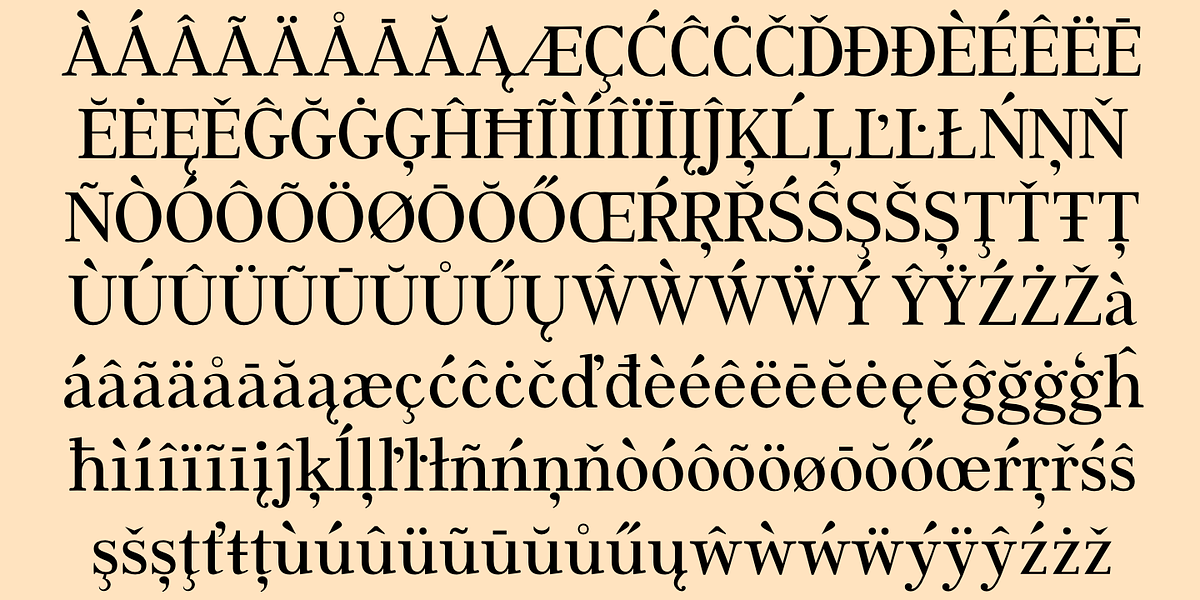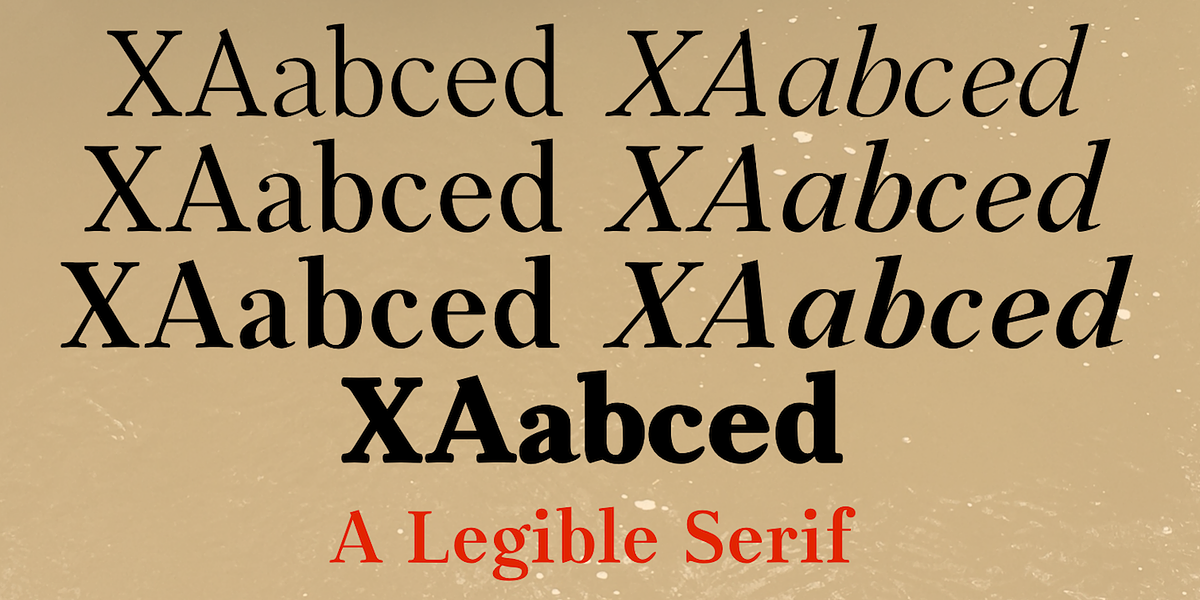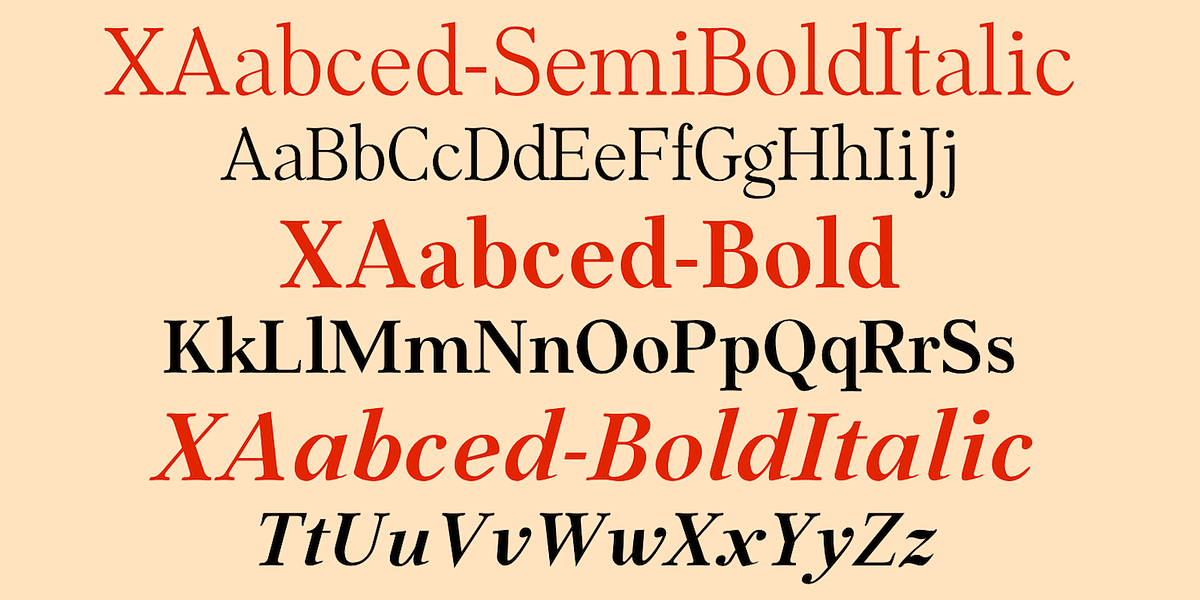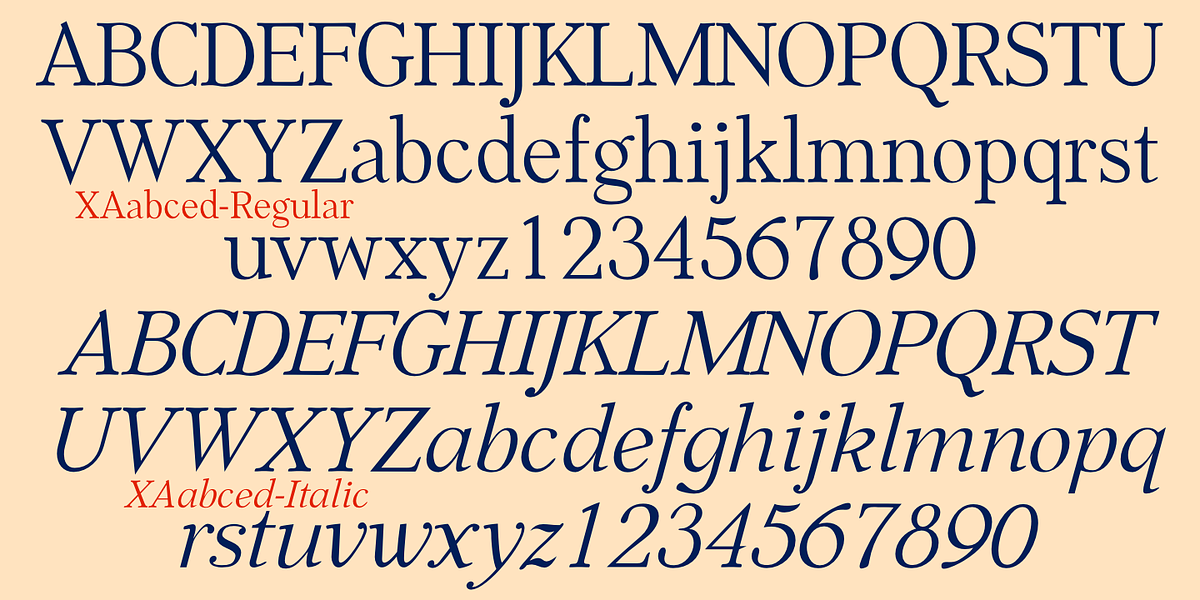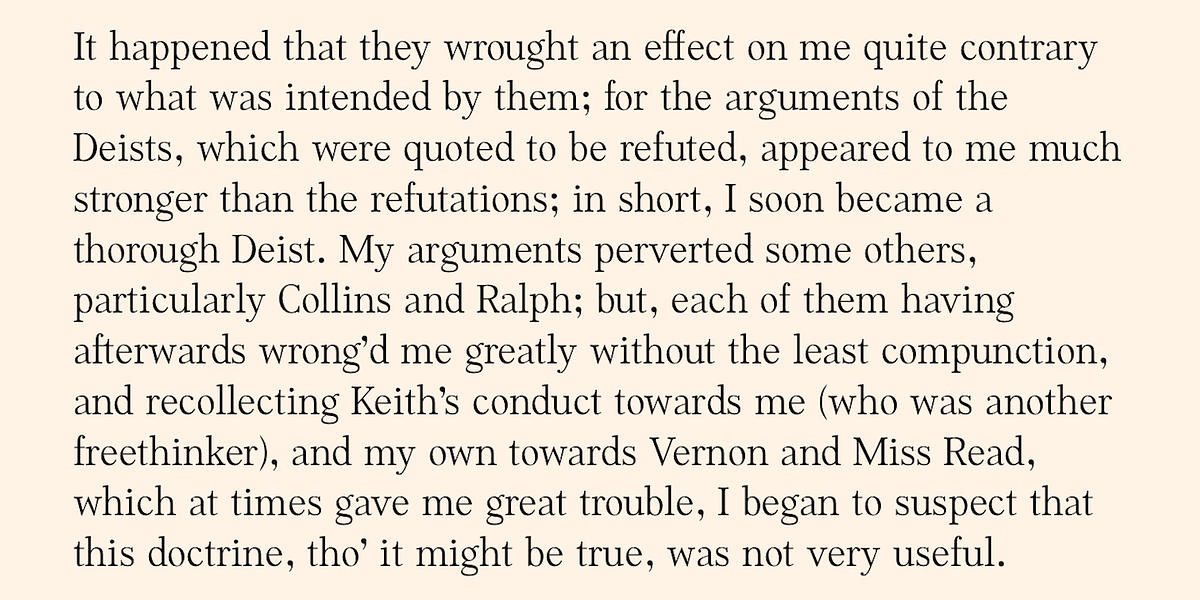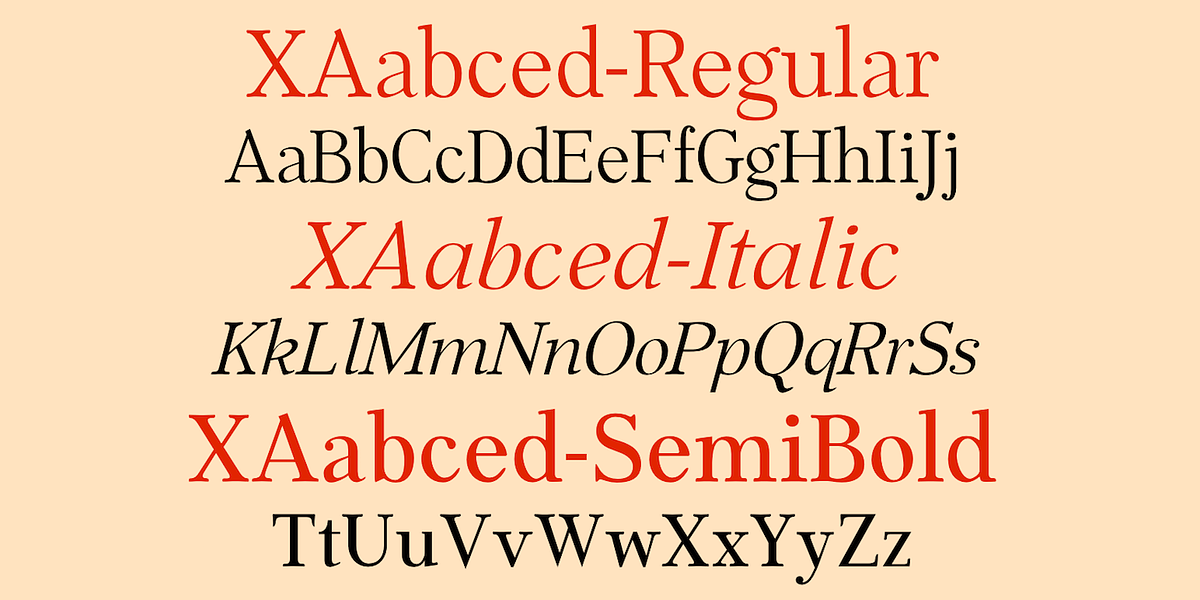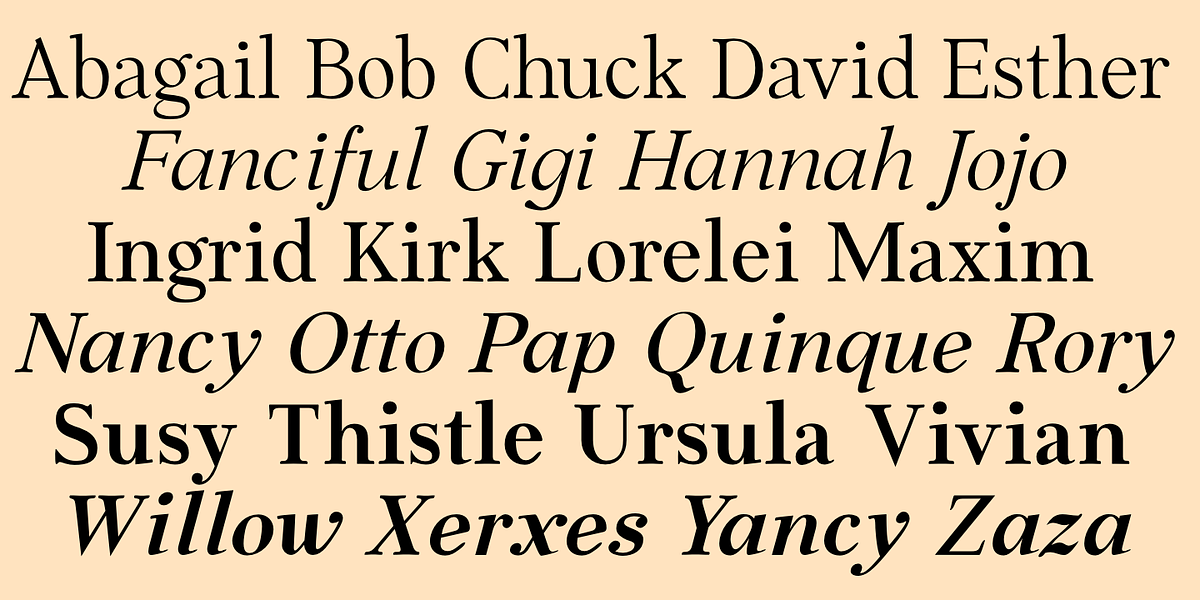
XAabced
XAabced is a condensed old-style serif typeface. It evolved from earlier text face designs and features long ascenders and descenders despite its compact form.